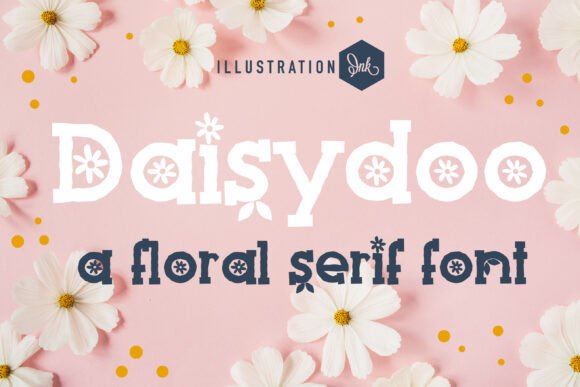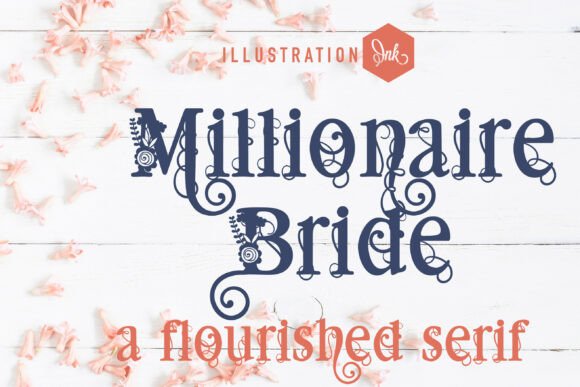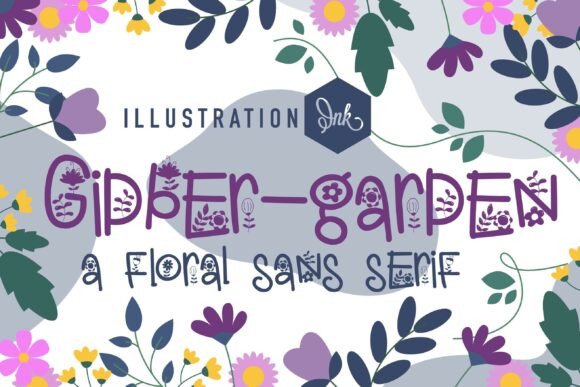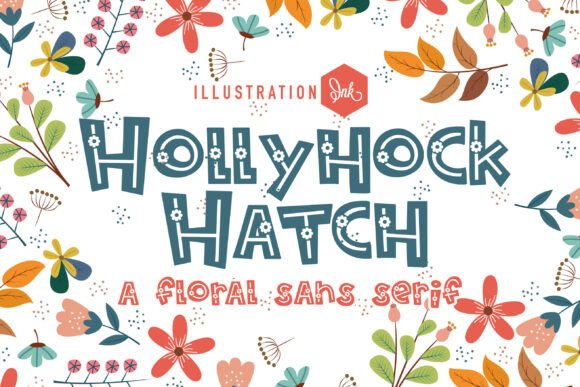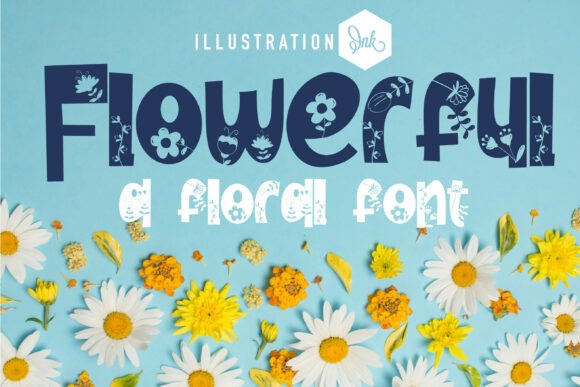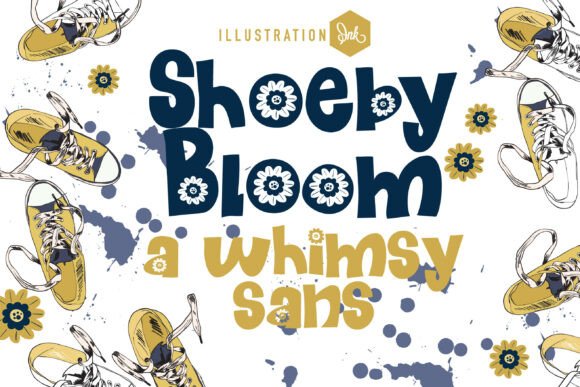
The Best Buds Font Bundle: A Designer’s Dream Come True
I’ll never forget the time I was working on a wedding stationery project, and my client asked me to create a custom floral theme. I spent hours scouring the internet for the perfect font, but nothing seemed quite right. That was until I stumbled upon the Best Buds Font Bundle. This gorgeous collection of 20 hand-crafted font families has been a game-changer for my design projects, and I’m excited to share it with you!
I’ve had the pleasure of working with the Best Buds Font Bundle for several projects, and here’s what I think:
• ✨ The variety of font styles is incredible – from delicate script fonts to bold, decorative typefaces.
• ✅ The quality of the fonts is top-notch, with beautiful, hand-drawn details that add a touch of elegance to any design.
• ✅ The bundle includes a range of OpenType features, glyphs, and stylistic alternates, making it easy to customize your text.
As for quirks, I’ve noticed a few:
• ⚠️ Some of the fonts can be a bit finicky when it comes to kerning – be prepared to do some manual adjustments.
• 🤔 A few of the fonts have limited character sets, so be sure to check the specs before using them for a project.
The Story Behind the Best Buds Font Bundle
The Best Buds Font Bundle was created by a team of designers who are passionate about typography and nature. They wanted to create a collection of fonts that would evoke the beauty and elegance of the natural world. The result is a stunning bundle of 20 font families that are perfect for any design project.
Font Name Best Buds Font
Author Illustration Ink